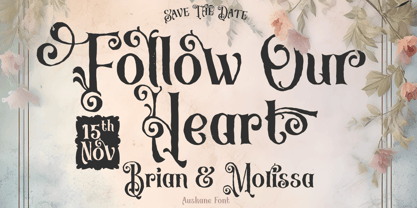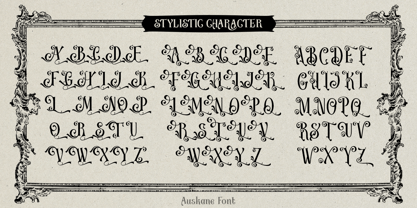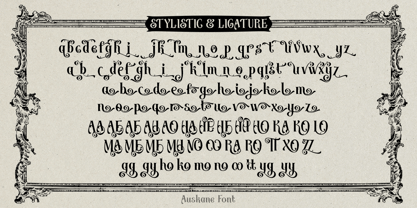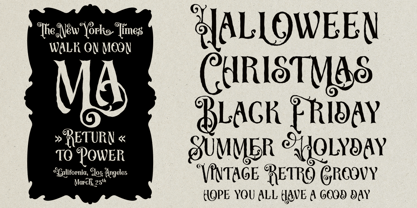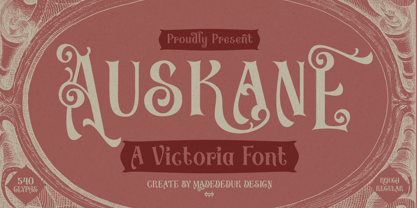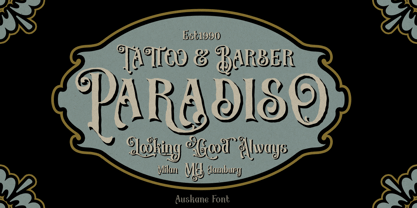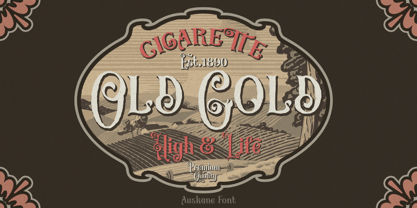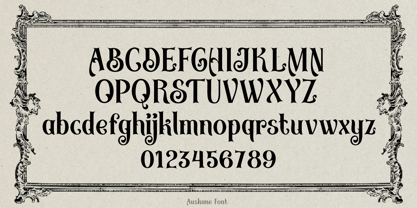
Auskane
by madeDeduk
The Auskane Font Family was designed by madededuk and published by madeDeduk. Auskane contains 2 styles and family package options. More about this family
We proudly present Auskane is a Victorian font with an elegant touch with a classic feel inspired by the typography from the 19th century come with regular and rough version, old fancy lettering, vintage illustration, and victorian calligraphy.
This font is very perfect for many display purposes in your product design if you want to a vintage and classic style, elegant and luxury. Such as book covers, product labels, logos badges, drink bottles, tattoo shop, coffee shops, fashion products, wedding invitation, etc.